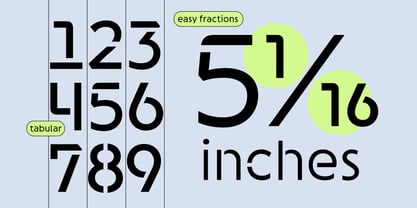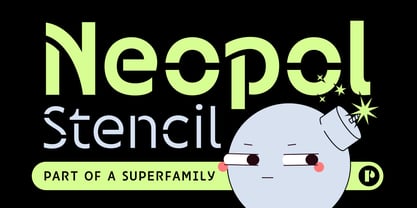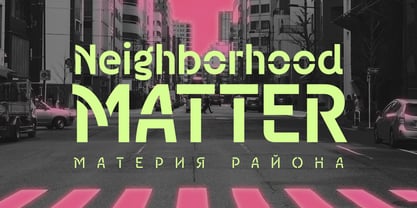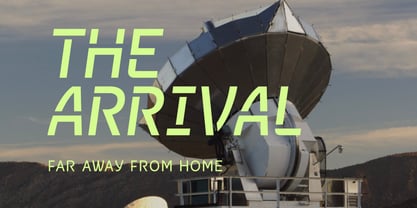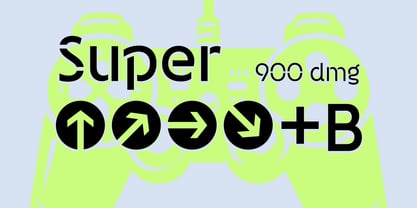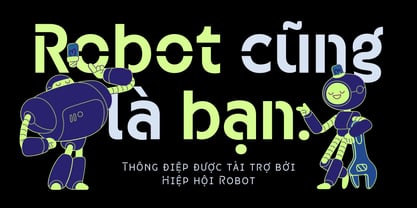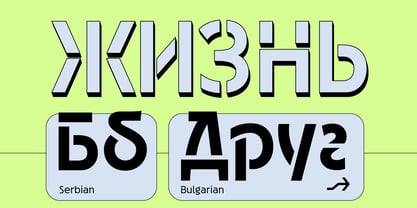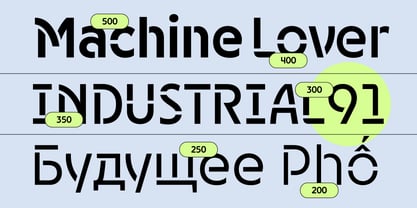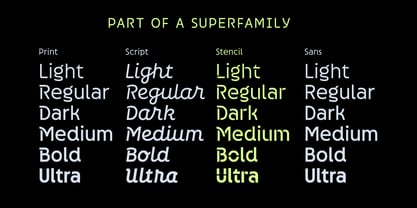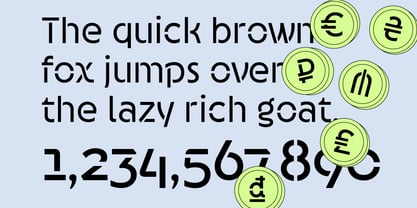
Neopol Stencil
La famille de polices Neopol Stencil a été conçue par Pedro Medina-Leandry et publiée par Pedroglifos. Neopol Stencil contient 12 styles et options de package familial. En savoir plus sur cette famille
Like a great city inhabited by diverse voices, this typeface superfamily comprises three styles that reflect distinct aspects of metropolitan life. Each style is interwoven with the others through subtle influences such as brushstrokes and stencil-like character bridges. Its broad expressive range spans from retro-modern and industrial to artisanal. Furthermore, as a cosmopolitan font, it boasts extended language support for both Latin and Cyrillic scripts. While each of the three styles stands out on its own, the practical beauty of this superfamily lies in their unity and interdependent relationship. The Cyrillic expansion was possible thanks to Tural Alisoy's collaboration (TAFT)